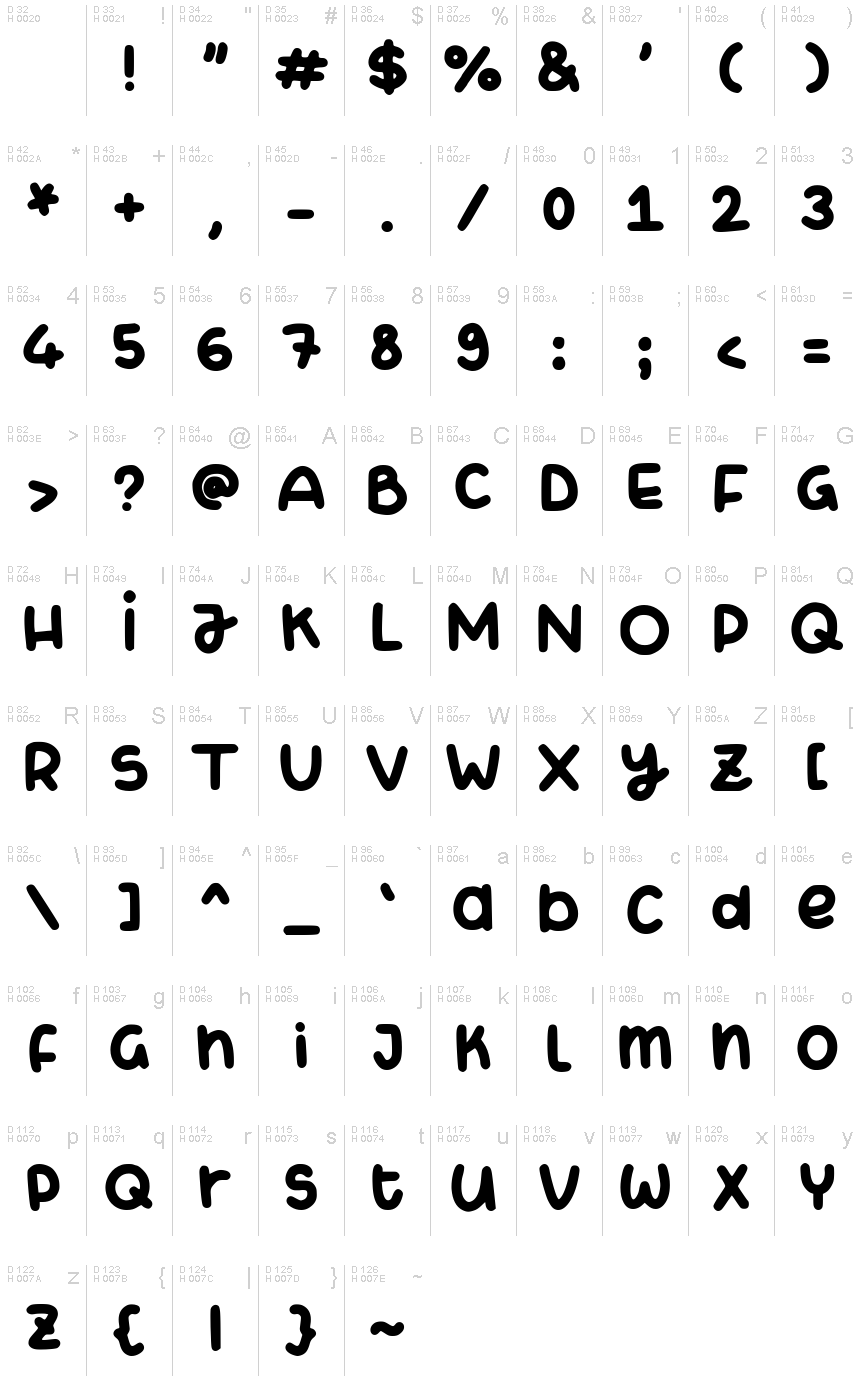
Mypeachnotes Regular
Mypeachnotes, designed by Sara Lombardo, embodies a charming handwritten style that adds a personal touch to any project. With its semi-bold weight and semi-expanded width, this font exudes a warm aesthetic that's both inviting and readable. The deliberate strokes suggest a crafted appeal, similar to an artisan's signature.
Crafted for personal use rather than commercial endeavors, Mypeachnotes is perfect for adding character to private journals, custom stationery, or unique branding for personal projects. Its handwritten quality makes it ideal for designs seeking to convey authenticity and individuality. Whether used in digital scrapbooking or personal correspondence, Mypeachnotes brings an element of bespoke sophistication that can elevate your creative work with its distinctively styled characters and expressive flair.